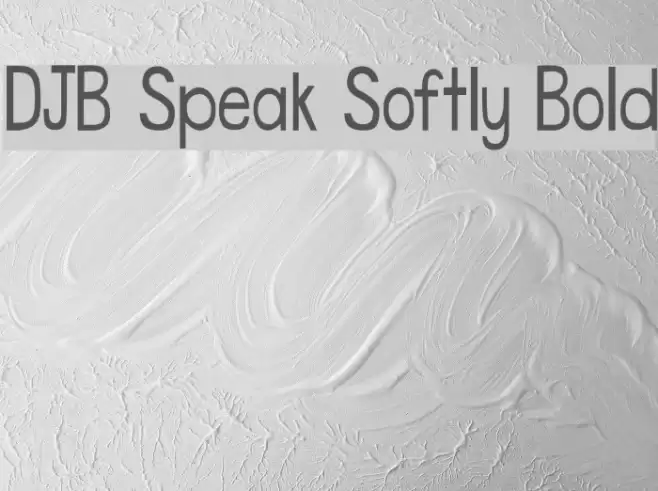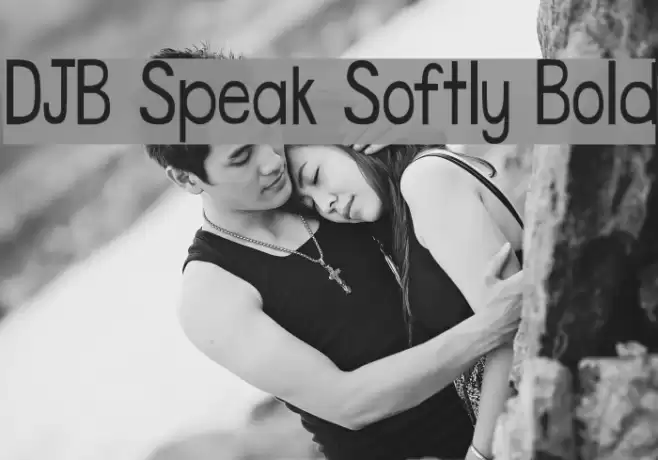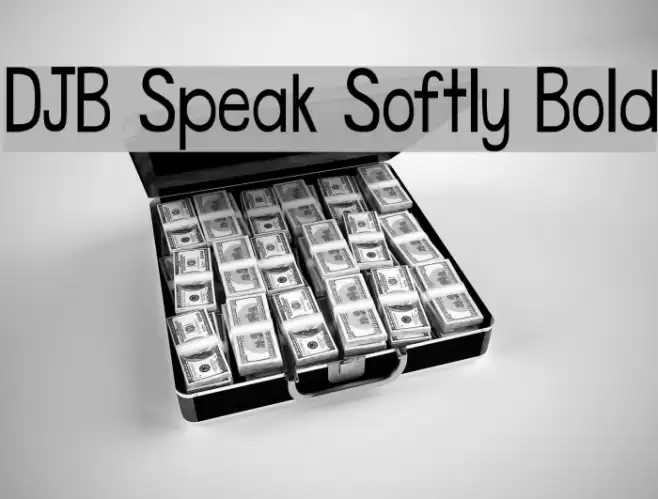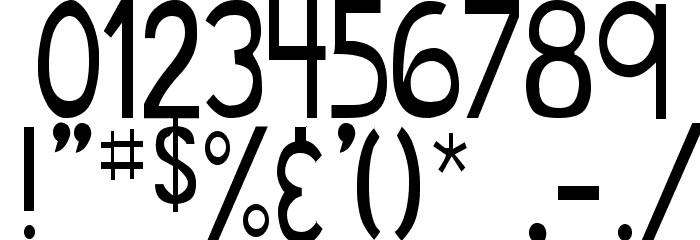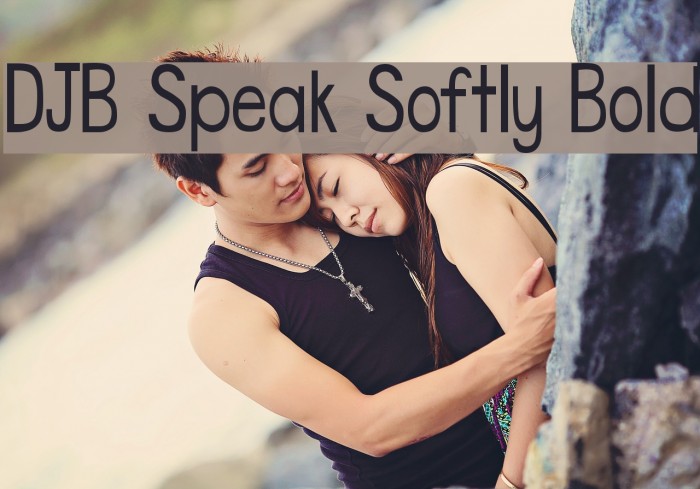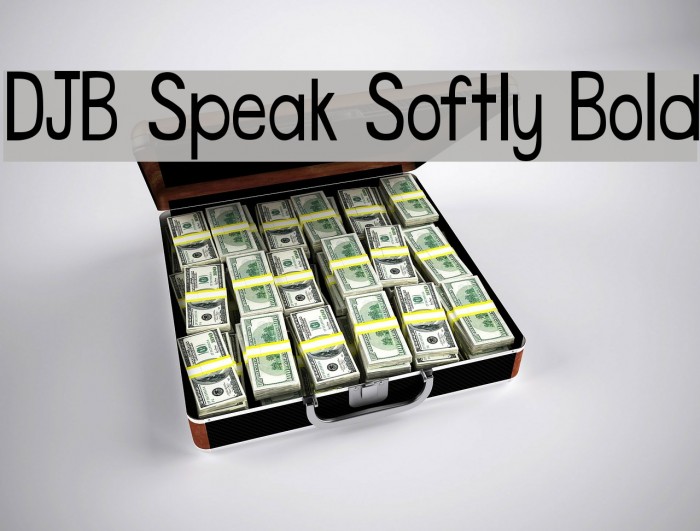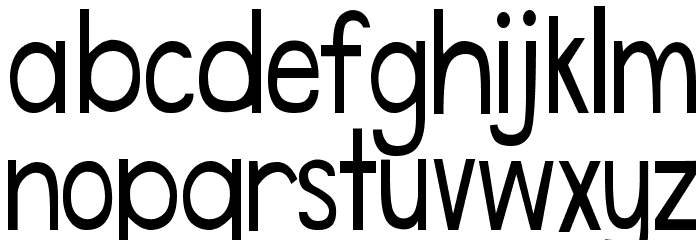
DJB Speak Softly Bold Font
DJB Speak Softly Bold Description
This font features a clean and modern sans-serif style with a bold weight, making it highly legible and impactful. The characters are evenly spaced with a normal width, providing a balanced and harmonious appearance. The uppercase and lowercase letters are well-proportioned, and the numerals are clear and distinct. The special characters are designed to complement the overall style, maintaining consistency across the font. Its simplicity and clarity make it suitable for a wide range of applications, from digital to print media.
A bold, modern sans-serif font with clean lines and balanced proportions from Uncategorized fonts.
- Proposed Projects: Ideal for branding, advertising, headlines, and digital content where clarity and impact are essential.
- Use Case: Headlines, Logos, Digital content